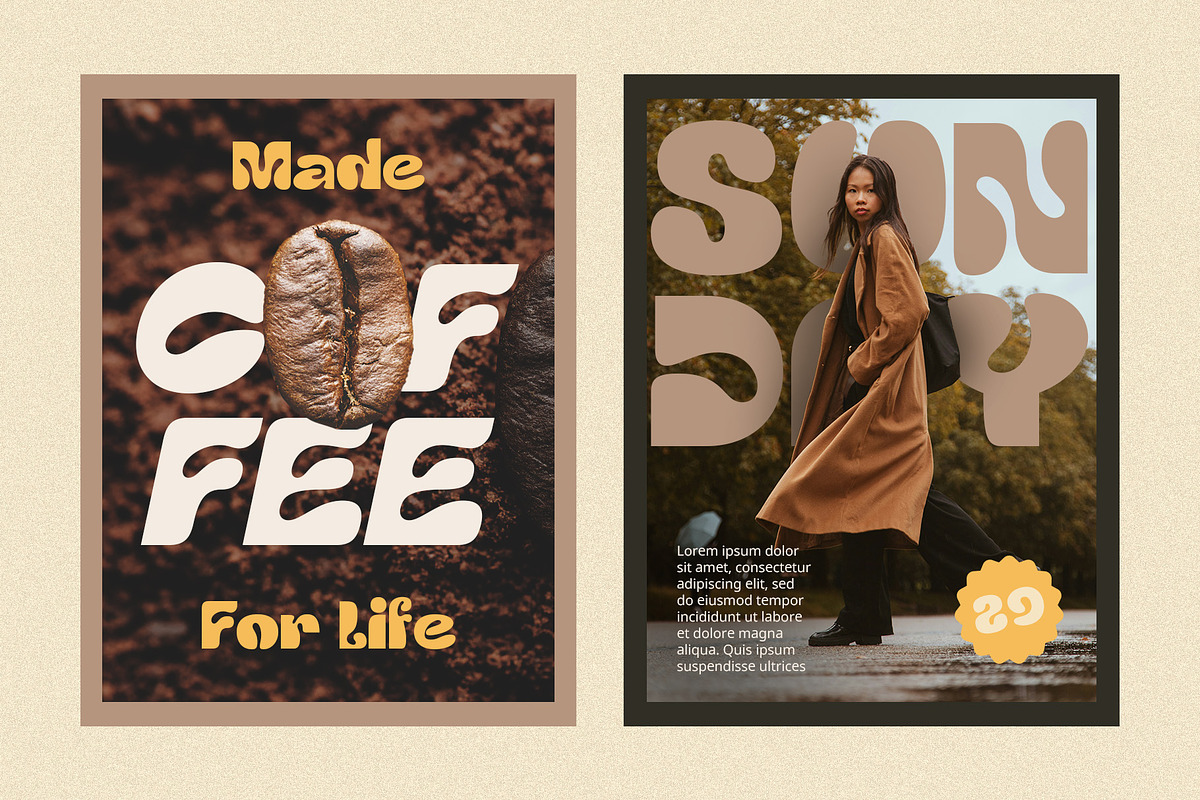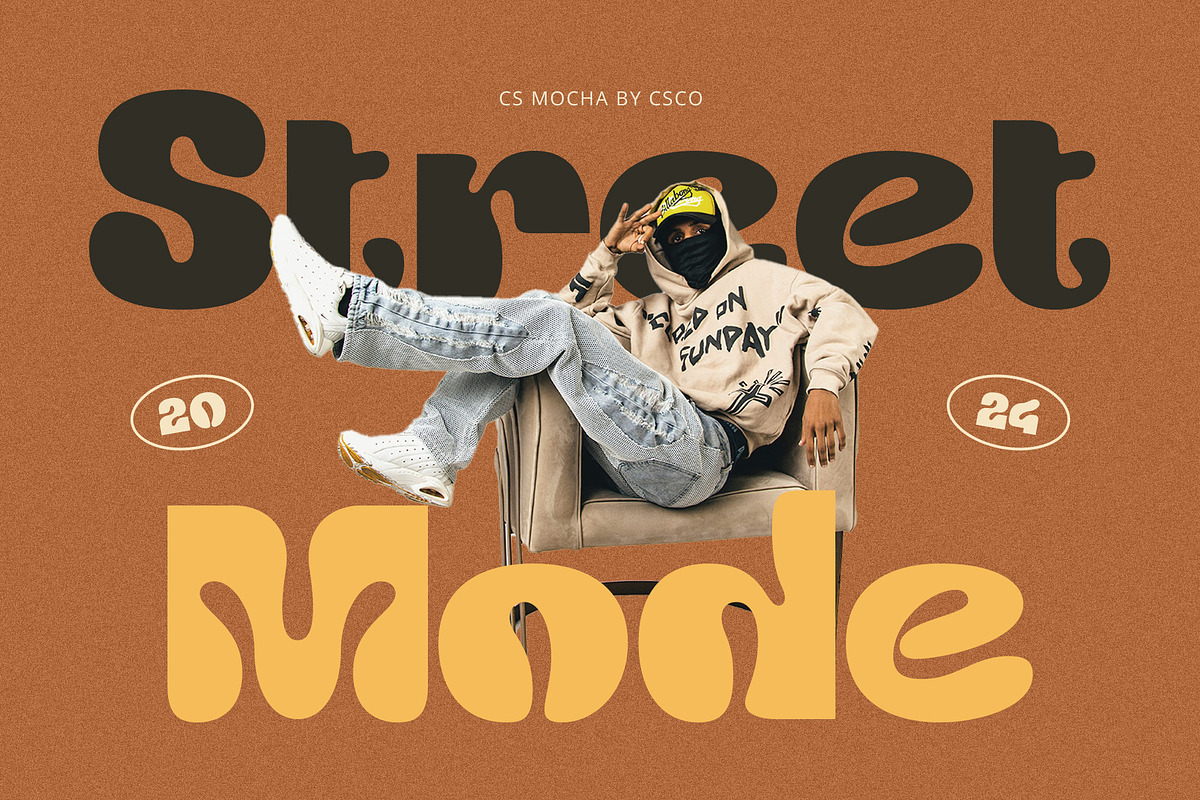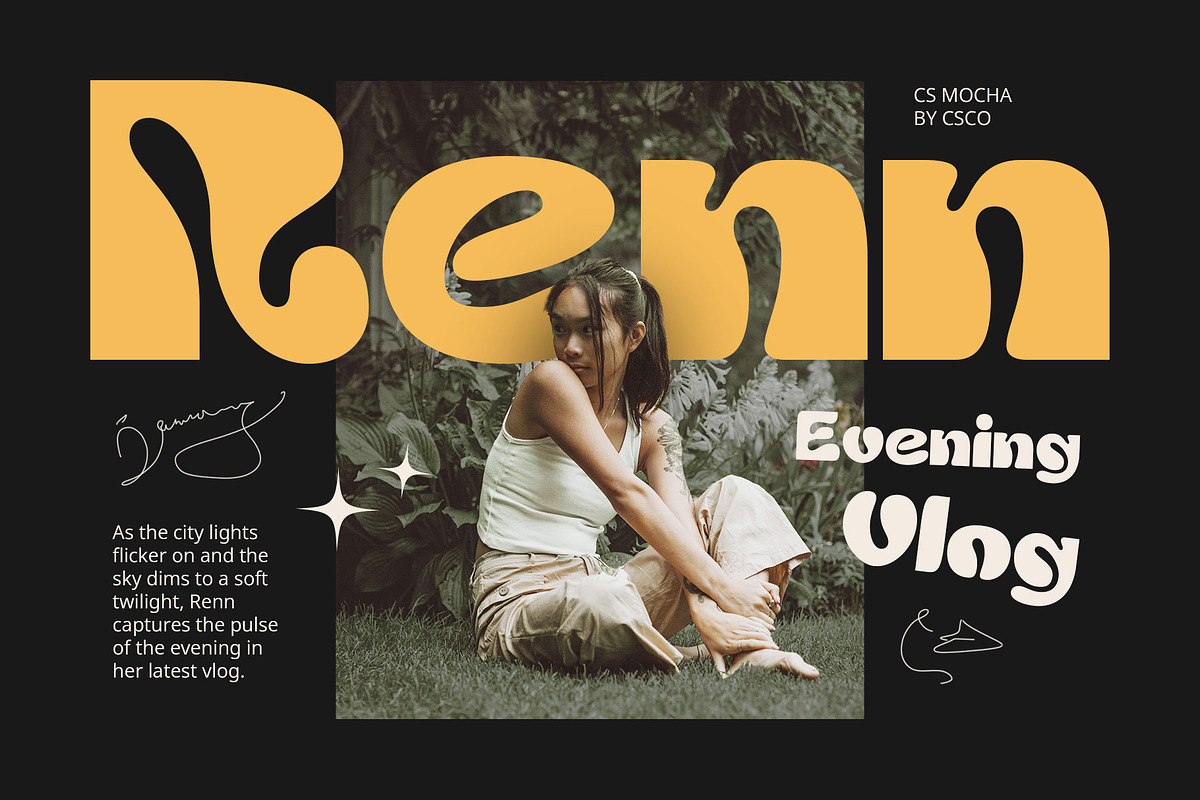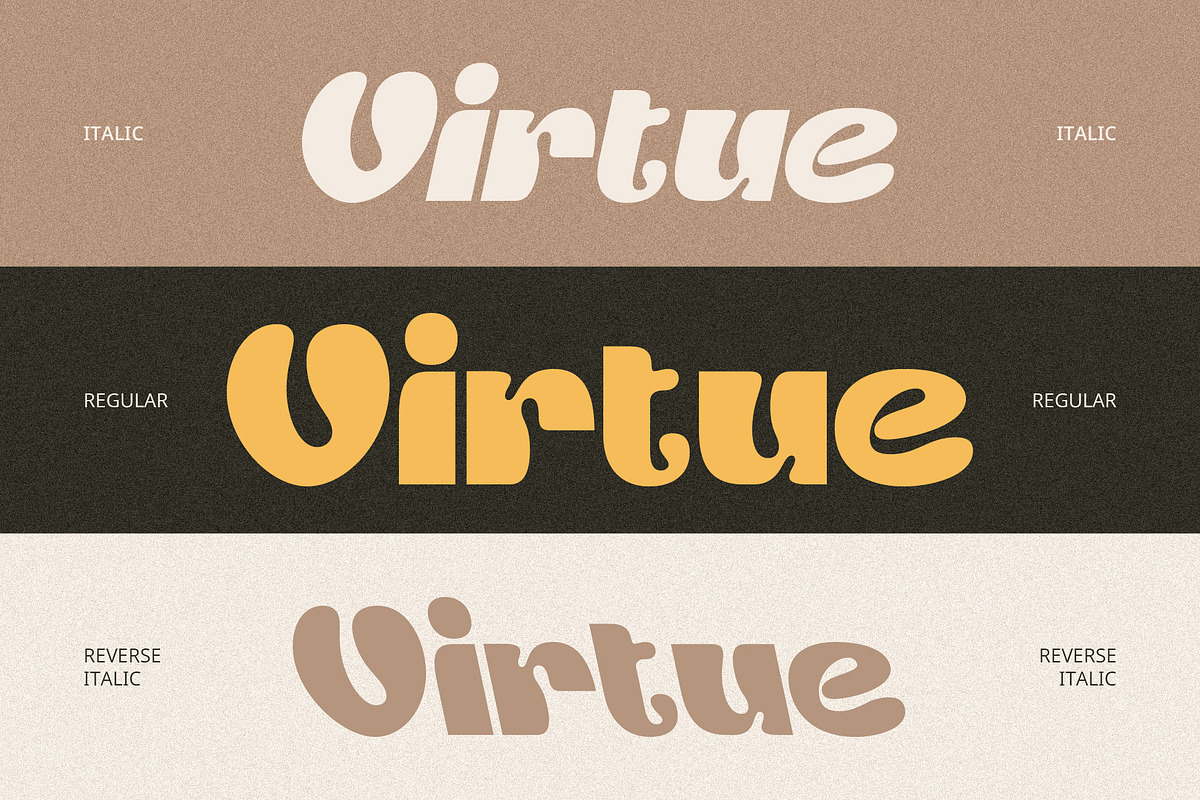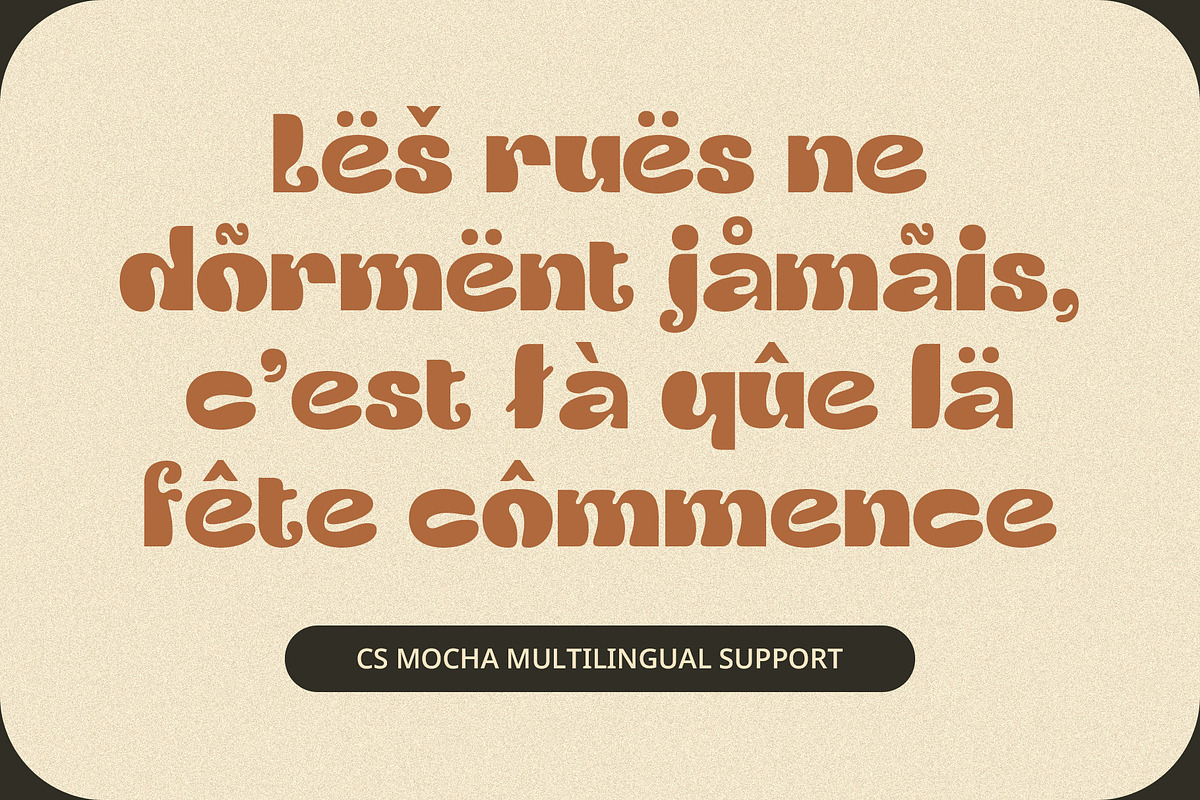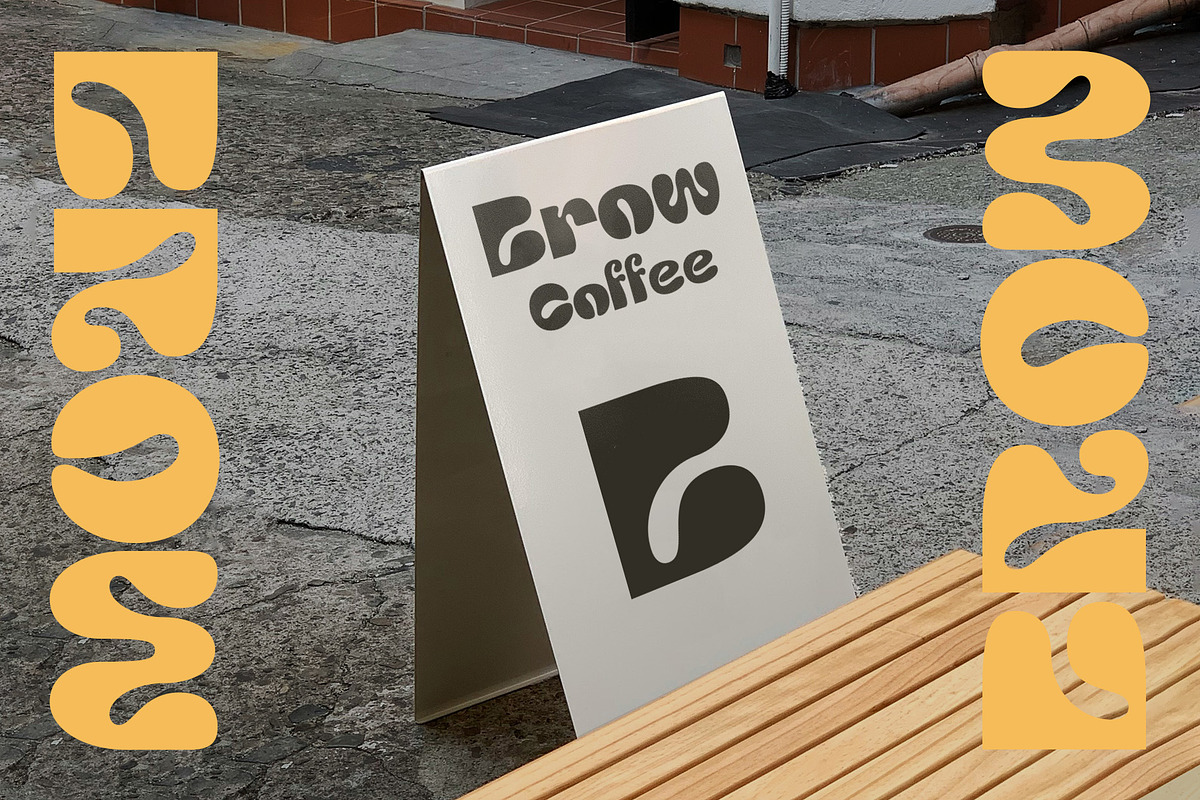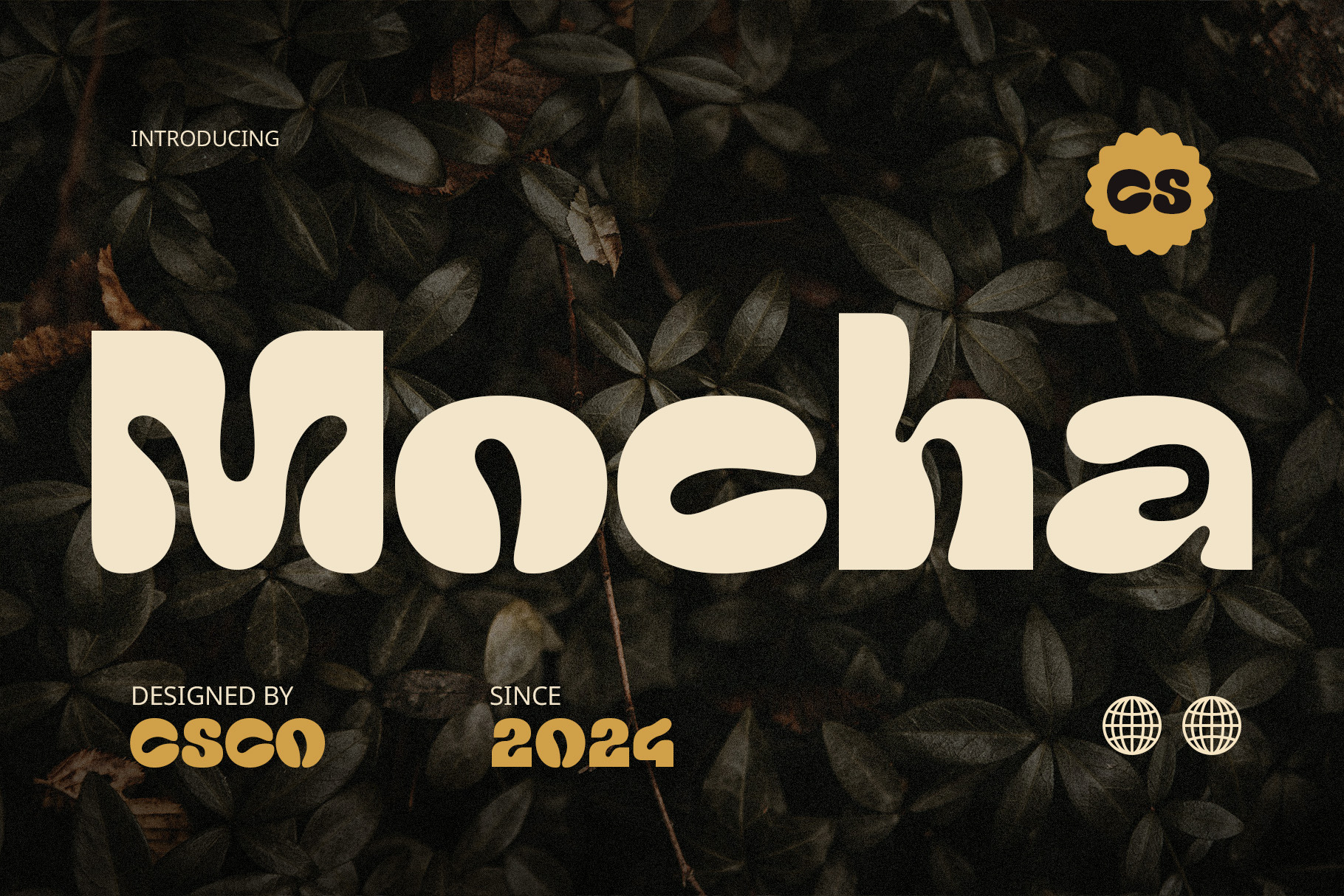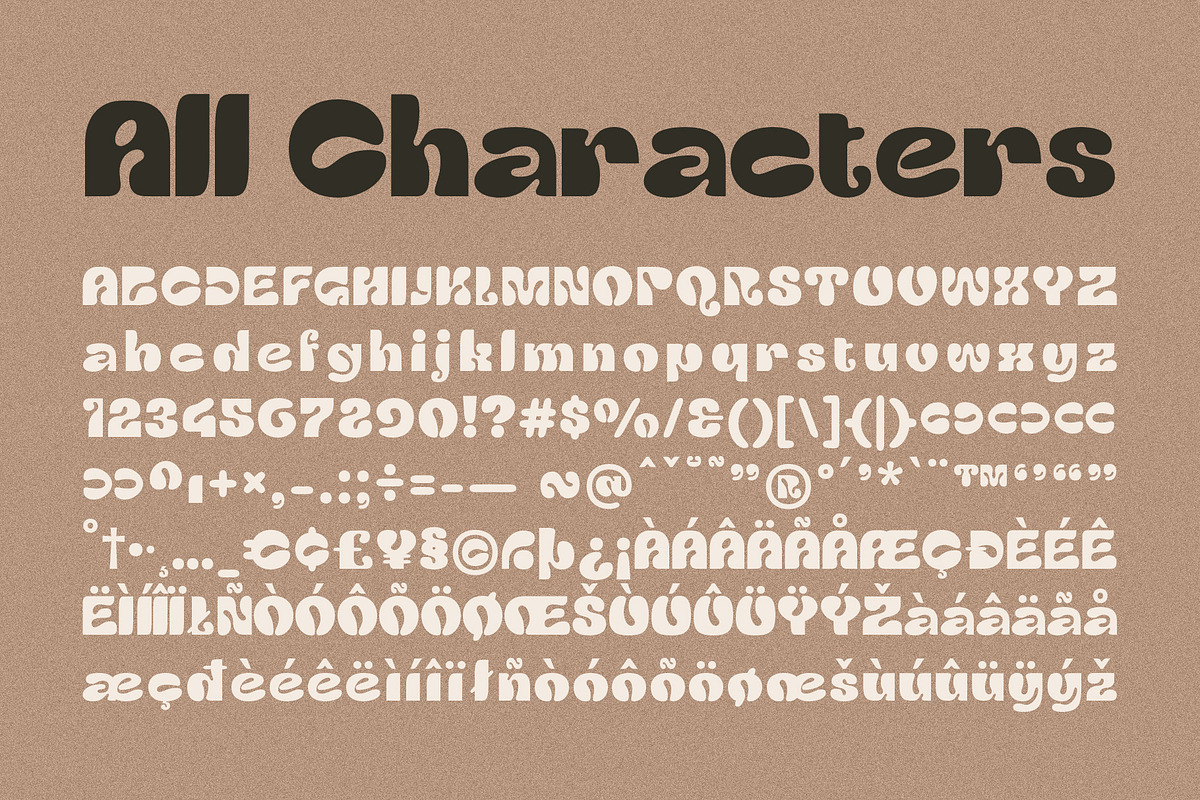
CS Mocha – Decorative Font
CS Mocha – Decorative Font: A Bold Brew of Playful Style
Coffee-Inspired Decorative Display Font CS Mocha is a decorative display font that takes inspiration from the warm, rounded shapes of coffee beans. With its bold forms and rounded lines, this font exudes a unique charm, offering a fun, inviting vibe that’s perfect for designs seeking to capture a cheerful, creative aesthetic. Its coffee-inspired shapes add a whimsical touch, making CS Mocha stand out with a distinct look that’s both memorable and engaging.
Charming and Funky Design With its characterful, rounded shapes and playful style, CS Mocha brings a cute, funky flair to any project. This decorative font radiates warmth and creativity, making it ideal for designs that aim to captivate and delight. From coffee packaging to friendly branding, its lively personality shines through, ensuring an eye-catching appeal that communicates joy and originality.
Perfect for Coffee Branding and Beyond Designed with coffee lovers in mind, CS Mocha is a great choice for coffee shop branding, café menus, or anything related to the cozy coffee culture. Its charming style also makes it versatile enough for posters, social media graphics, and other projects that seek a warm and spirited look. CS Mocha’s unique aesthetic provides an instant visual connection to all things cozy, friendly, and fun.
- CS Mocha Regular
- CS Mocha Italic
- CS Mocha Reverse Italic